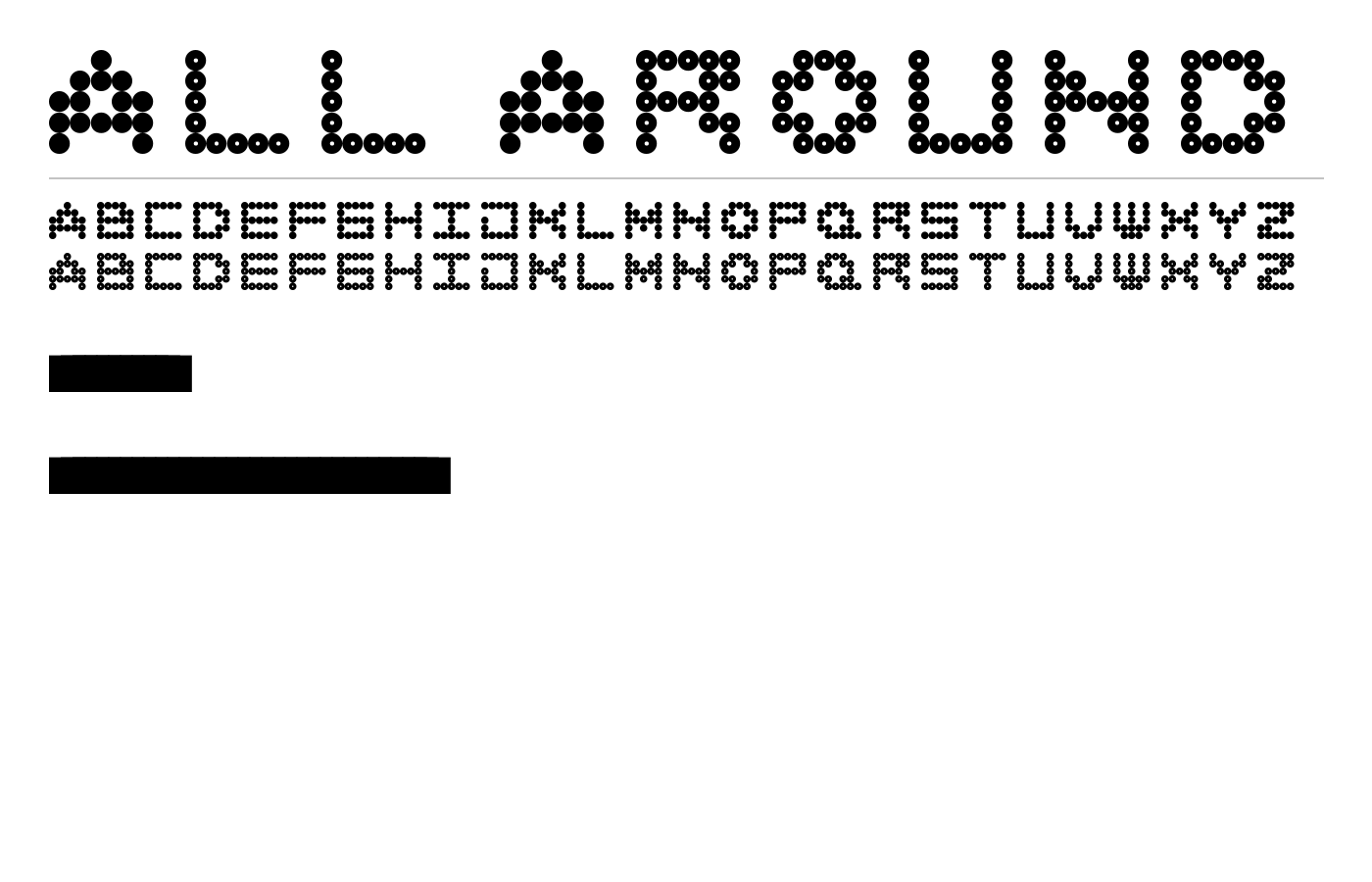
All Around Font is a playful and distinctive display typeface composed entirely of circular dots, giving it a unique pixelated and digital feel. Its geometric, monospaced shapes create a modern and fun atmosphere, making it ideal for creative headlines, tech-inspired branding, or retro-themed designs that need a bold and eye-catching presence. This font works best in large sizes where its dot structure can be appreciated, making it less suitable for body text but perfect for posters and logos seeking an innovative style.
All Around Font
About All Around Font